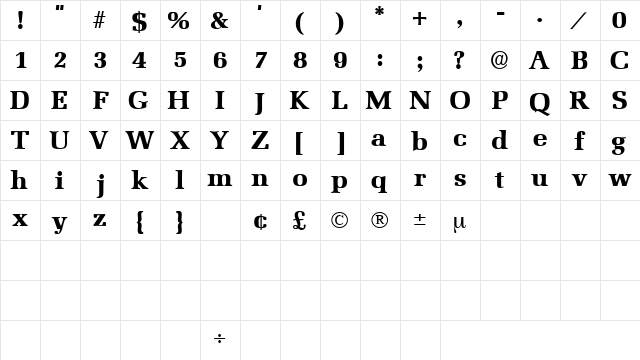
BroccusDisplaySSK Regular Font Preview
BroccusDisplaySSK Regular
BroccusDisplaySSK Regular Font Details
Design Context for BroccusDisplaySSK Typeface
BroccusDisplaySSK is built around its visual character rather than neutral utility — its distinctive forms are designed to make an impression at display sizes.